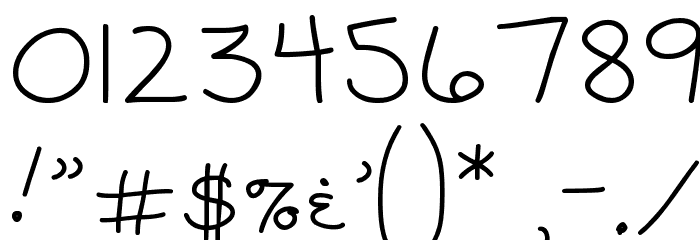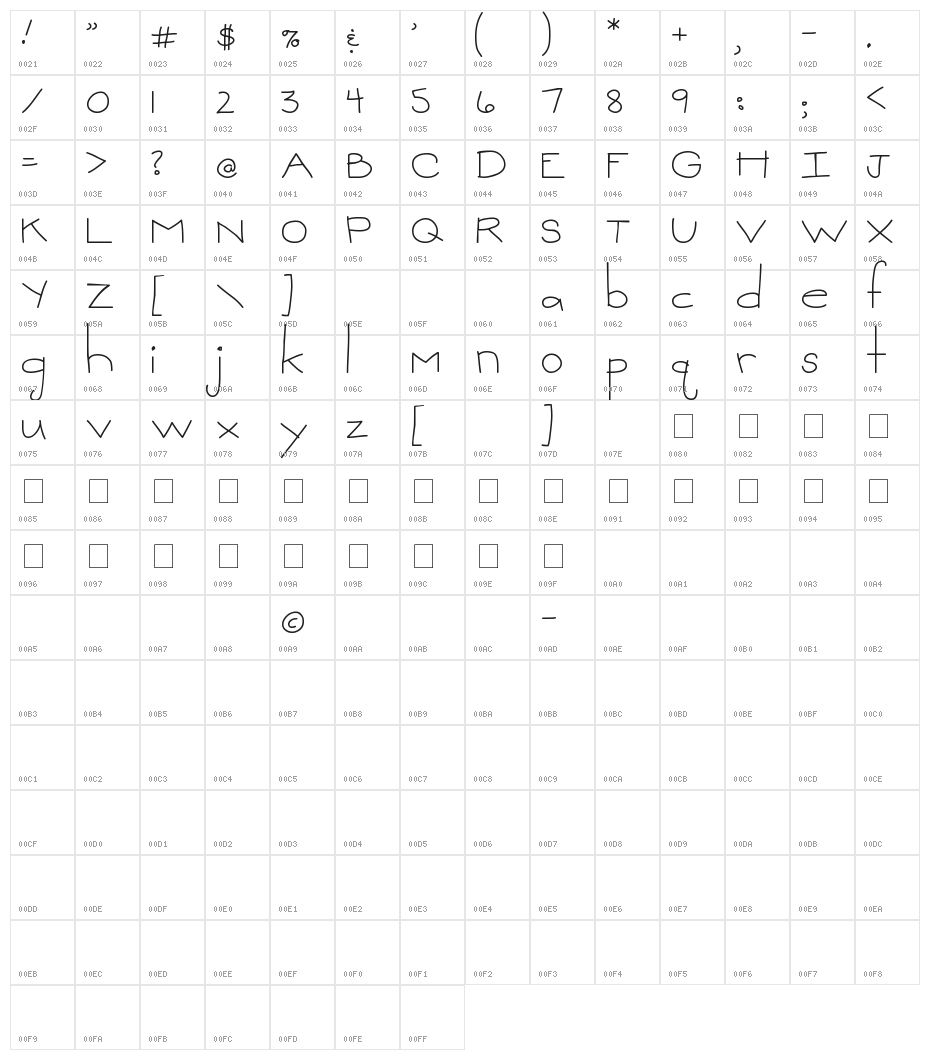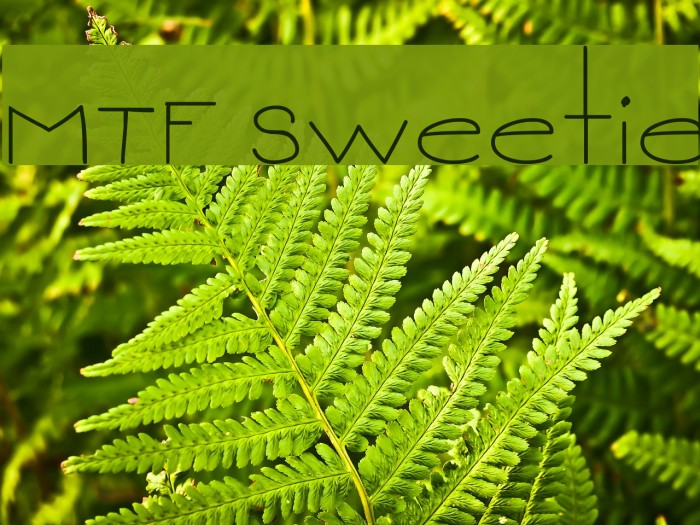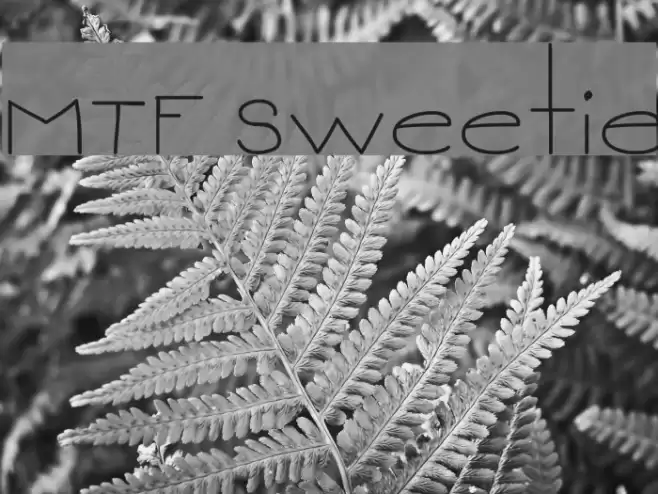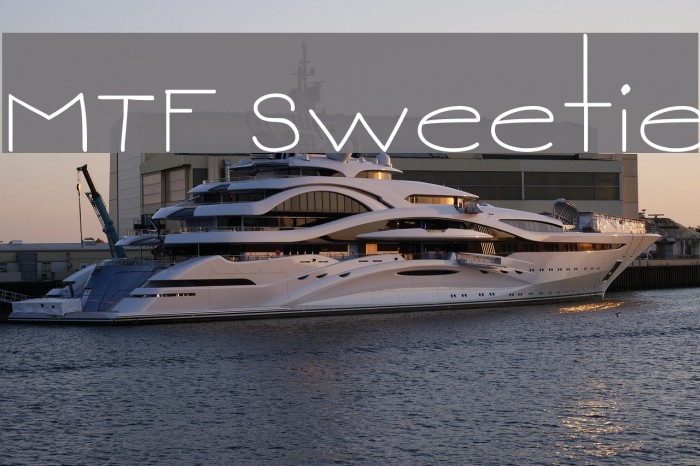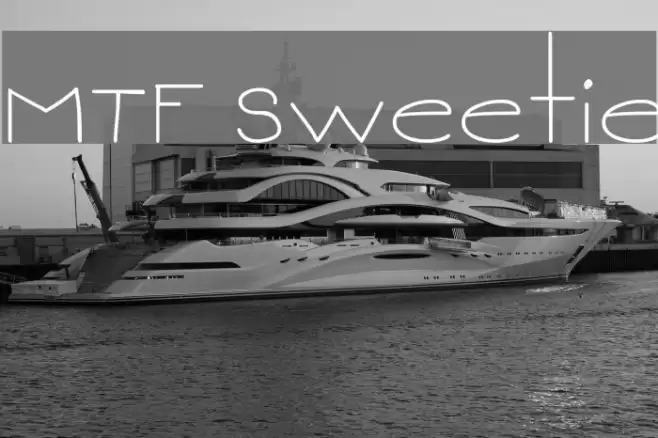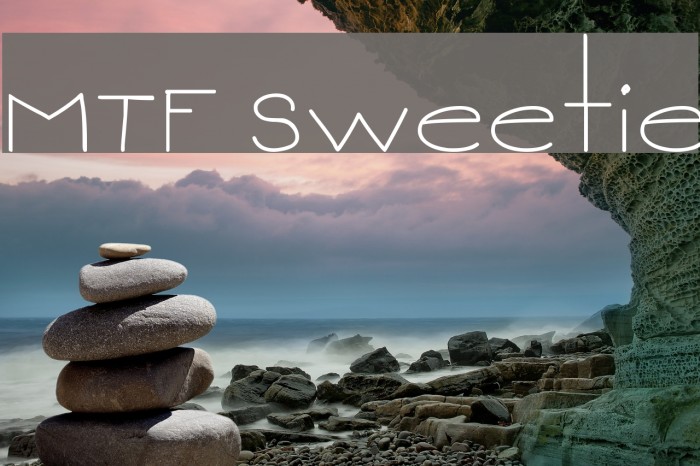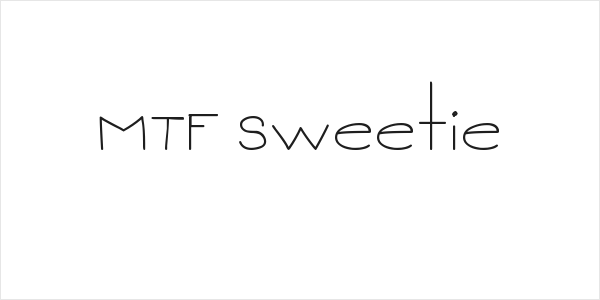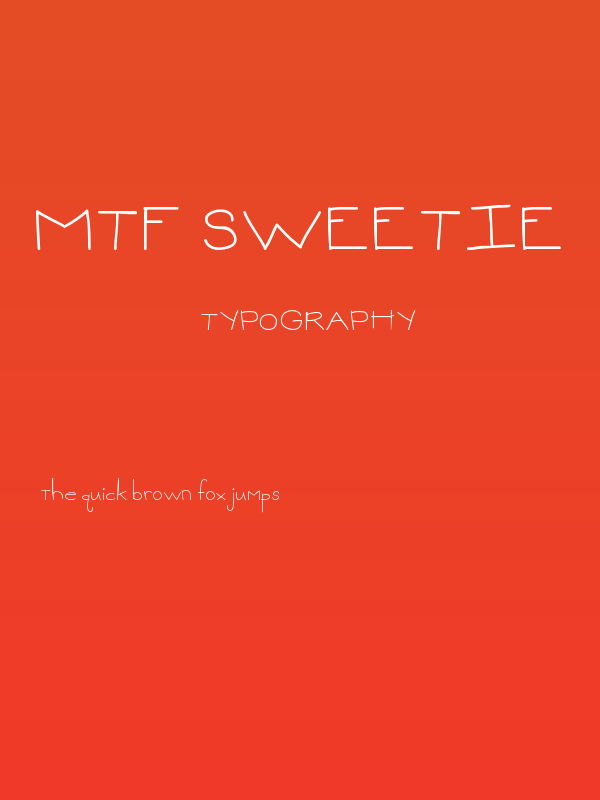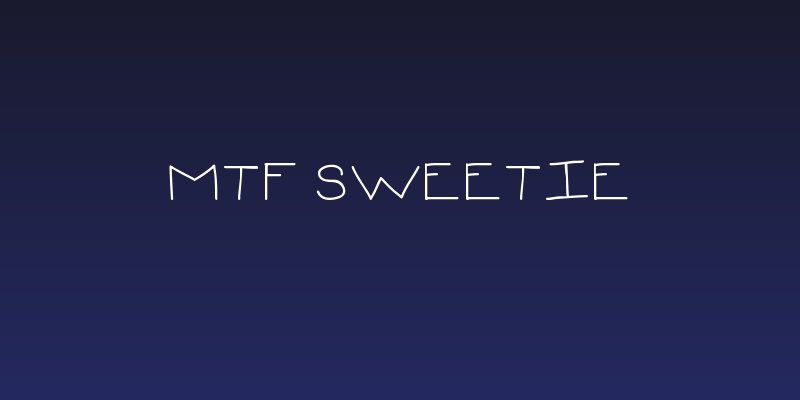
MTF Sweetie Font
MTF Sweetie Description
This font features a playful and whimsical style, characterized by its handwritten appearance. The letters are slightly irregular, giving it a casual and friendly feel. The strokes are consistent in thickness, providing a uniform look across all characters. The uppercase letters are tall and narrow, while the lowercase letters have a more rounded and open form. The numbers are clear and legible, matching the overall style of the alphabet. Special characters are creatively designed, maintaining the font's playful nature. This font is ideal for projects that require a personal touch, such as invitations, greeting cards, or children's books.
| Proposed Projects | Ideal for invitations, greeting cards, children's books, and playful branding. |